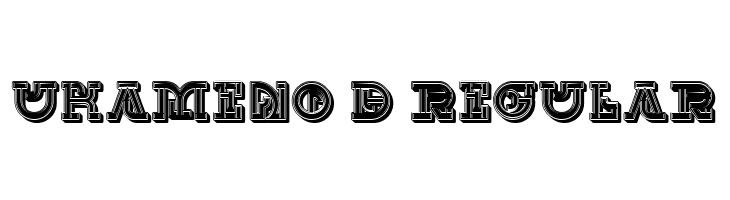
A bold, 3D geometric font with a modern, impactful style.
A bold, decorative font with a double-line structure and geometric precision.
A bold, decorative font with geometric outlines and a modern twist.
A bold, geometric hollow font with a three-dimensional effect.
A bold, decorative font with a three-dimensional, art deco-inspired design.
A bold, geometric font with angular lines and a modern, edgy style.
A bold, playful font with a shadow effect for added depth.
A bold, outlined font with a geometric and modern design.